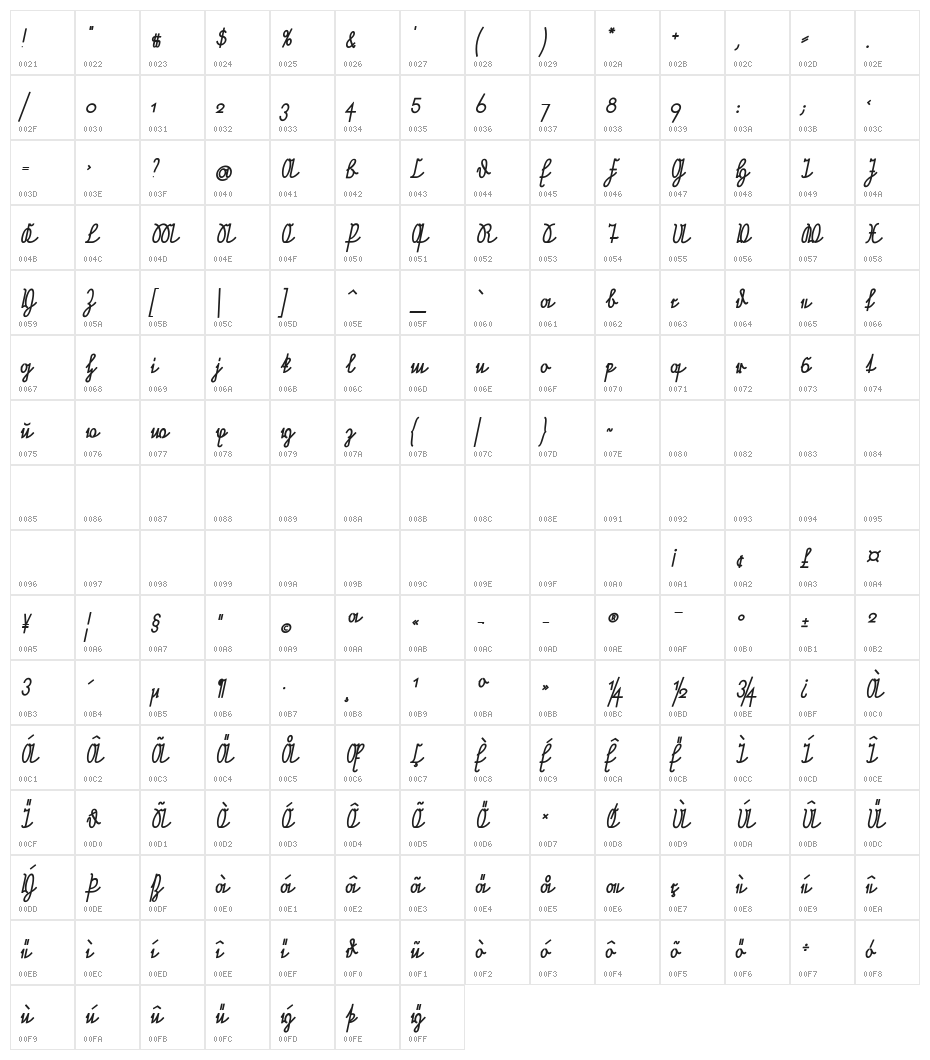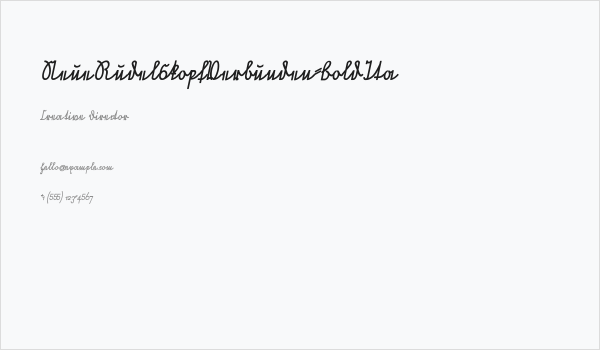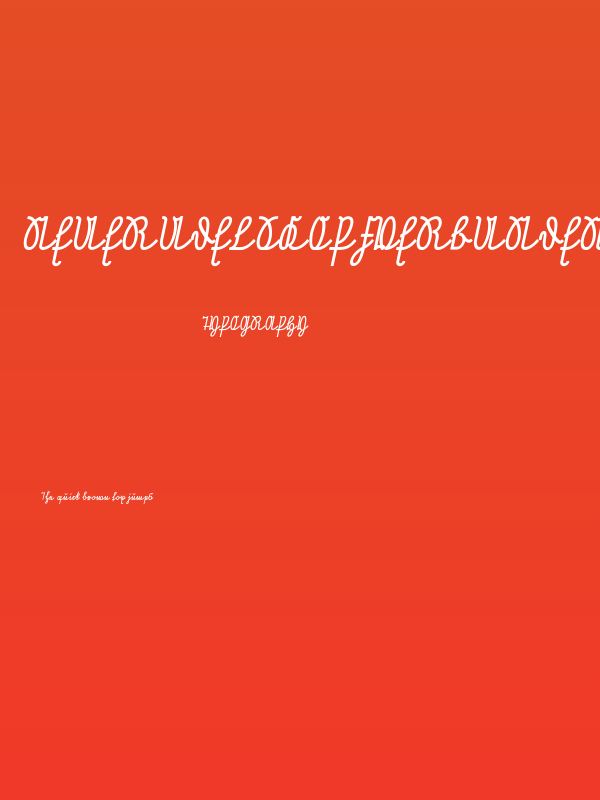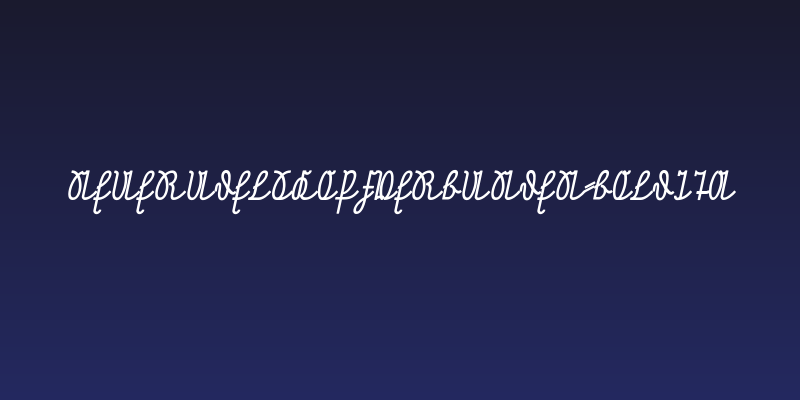
NeueRudelskopfVerbunden-BoldIta Font
NeueRudelskopfVerbunden-BoldIta Description
This font features a bold and italicized script style, characterized by its flowing, connected letters that mimic elegant handwriting. The uppercase letters are distinct with a slight slant, while the lowercase letters maintain a consistent cursive flow. Numbers are clear and legible, maintaining the script's fluidity. Special characters are designed to match the overall aesthetic, ensuring a cohesive look across all elements. The font's bold weight enhances its visibility, making it suitable for impactful designs.
| Overall Style | Elegant, Decorative |
| Proposed Projects | Ideal for wedding invitations, greeting cards, branding, and logo design where a personal, elegant touch is desired. |